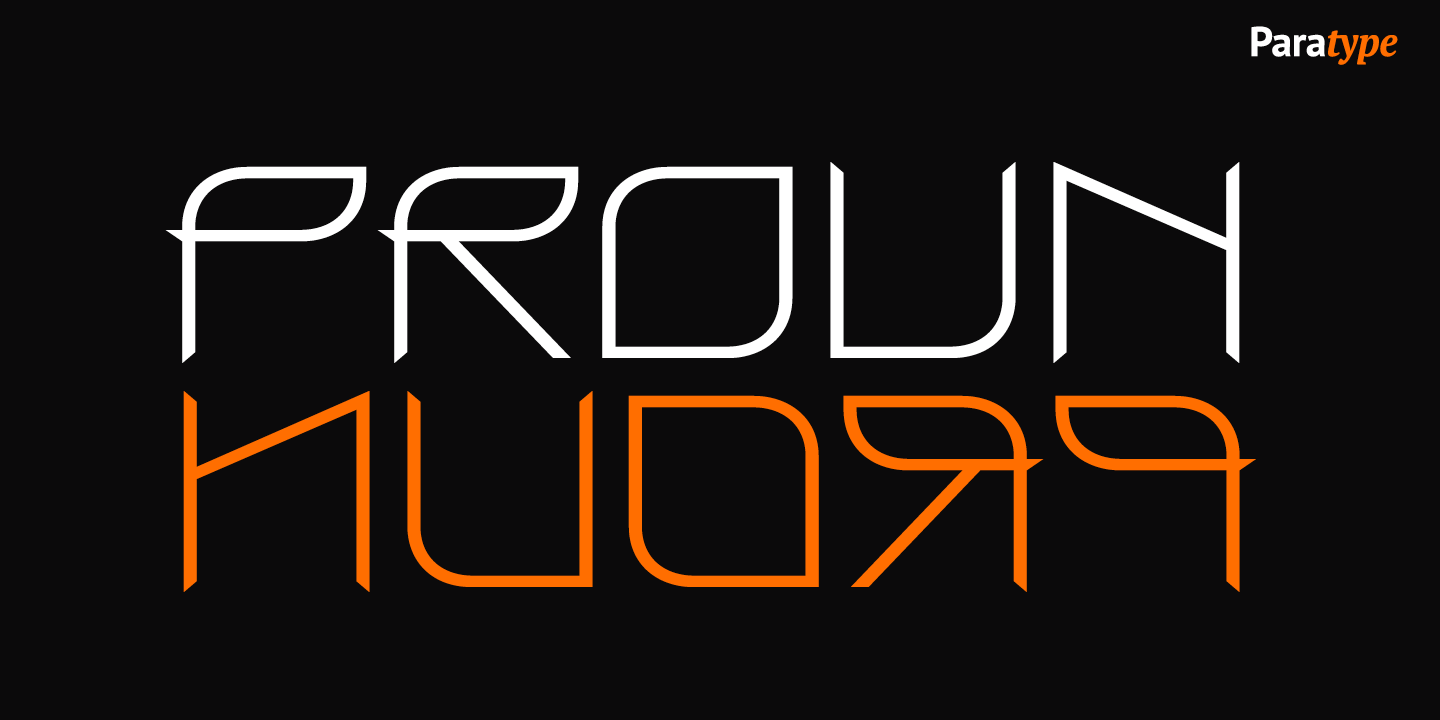
This decorative sans-serif typeface is perfect for posters, logos, packaging, branding, and social media graphics.
The Proun Font is exciting because its bold, geometric design with a constructivist aesthetic delivers a striking, modern look for creative projects.
Its font family includes Proun Normal, Proun Bold, Proun Light, and Proun Black, offering four styles for versatile applications.
Looking for a font that combines bold geometry with a distinctive, artistic flair? Proun Font Free Download is an ideal choice for designers seeking a decorative sans-serif typeface. Designed by Tagir Safayev and published by ParaType in 1993, this font draws inspiration from the Russian Constructivist movement, similar to Bryan Thatcher’s Choose One/Ten typeface. Its clean, angular forms make it perfect for both digital and print projects, from eye-catching posters to unique branding.
The Proun Font excels in applications requiring a strong, modernist aesthetic. It’s a top choice for posters, where its geometric shapes create impactful visuals for events like art exhibitions or music festivals. Designers use it for logos, adding a bold, avant-garde touch to brands in tech or creative industries. Packaging for products like artisanal goods or boutique items benefits from its striking design. Social media creators leverage it for Instagram posts, TikTok overlays, or YouTube thumbnails, ensuring high engagement. Its versatility also suits housewares and product branding.
The Proun Font family includes Proun Normal for standard text, Proun Bold for impactful headlines, Proun Light for subtle accents, and Proun Black for maximum emphasis. These four styles provide flexibility for creating cohesive, dynamic visuals across various applications. While it lacks extensive OpenType features, its geometric simplicity ensures versatility for logos, covers, or text overlays.